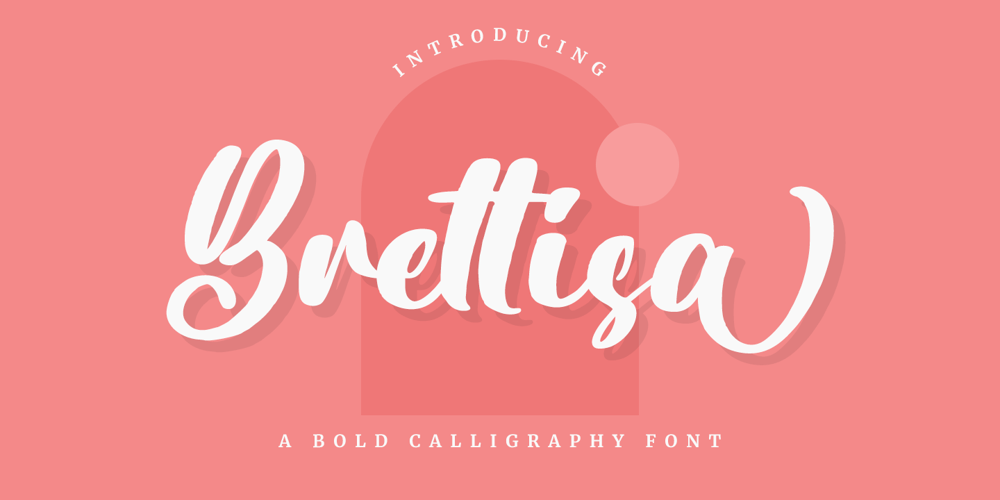
Brettisa Font Family was designed by Hayinah and published by Rockboys Studio. Brettisa contains 1 styles and family package options. Brettisa is a dazzling script font. This font is neatly crafted and highly detailed. Whatever the topic, this font will be a wonderful asset to your font library, as it has the potential to enhance any creation.